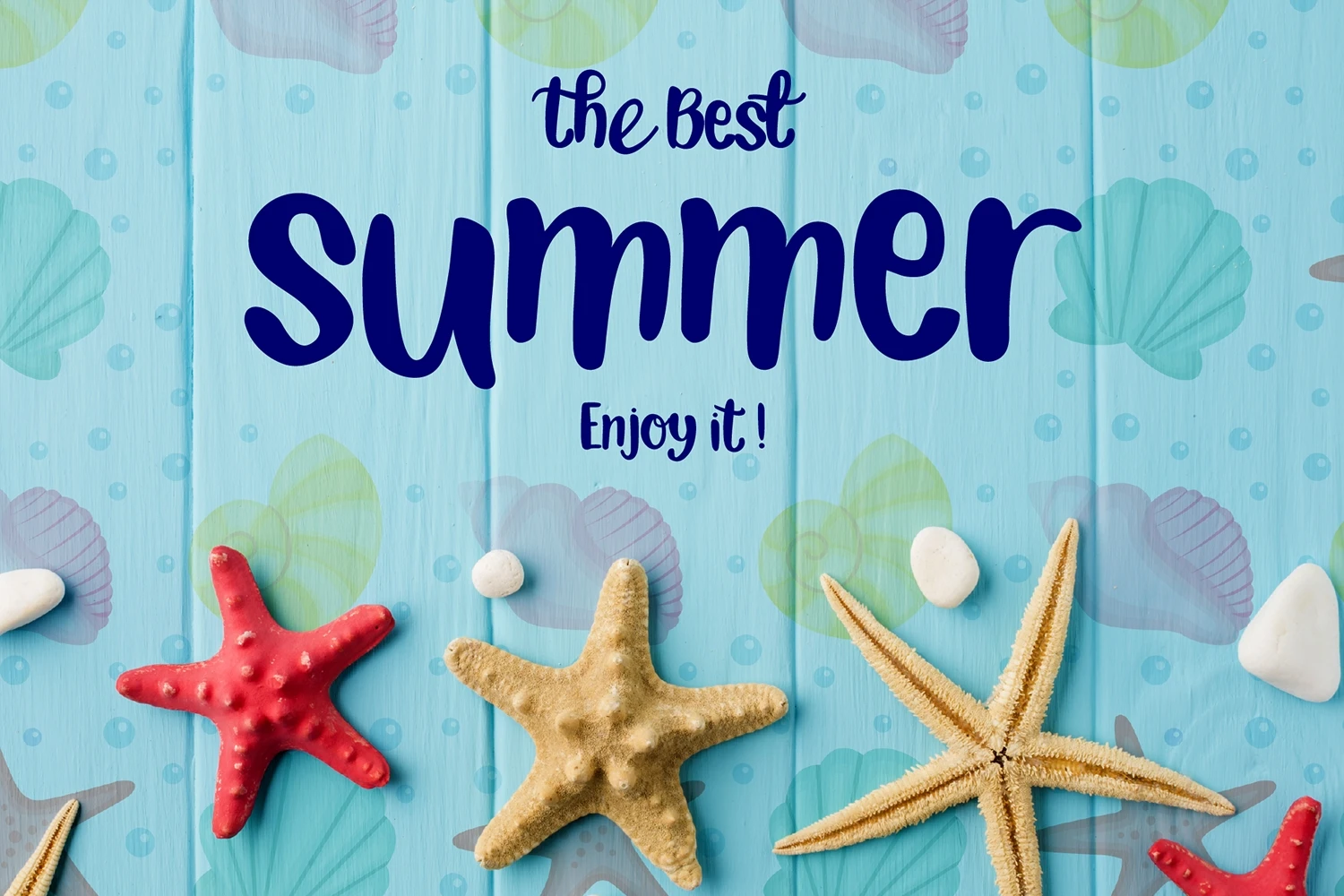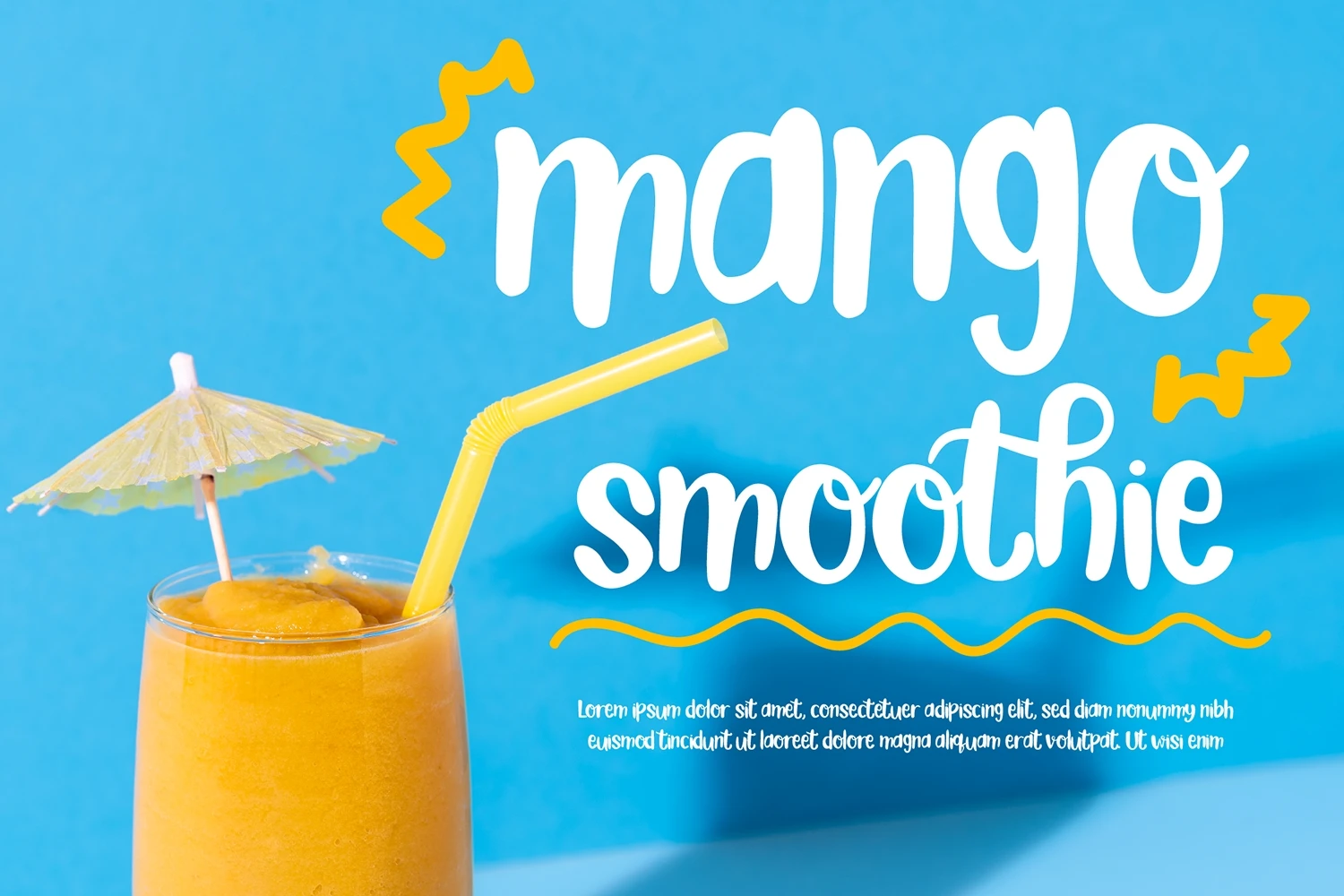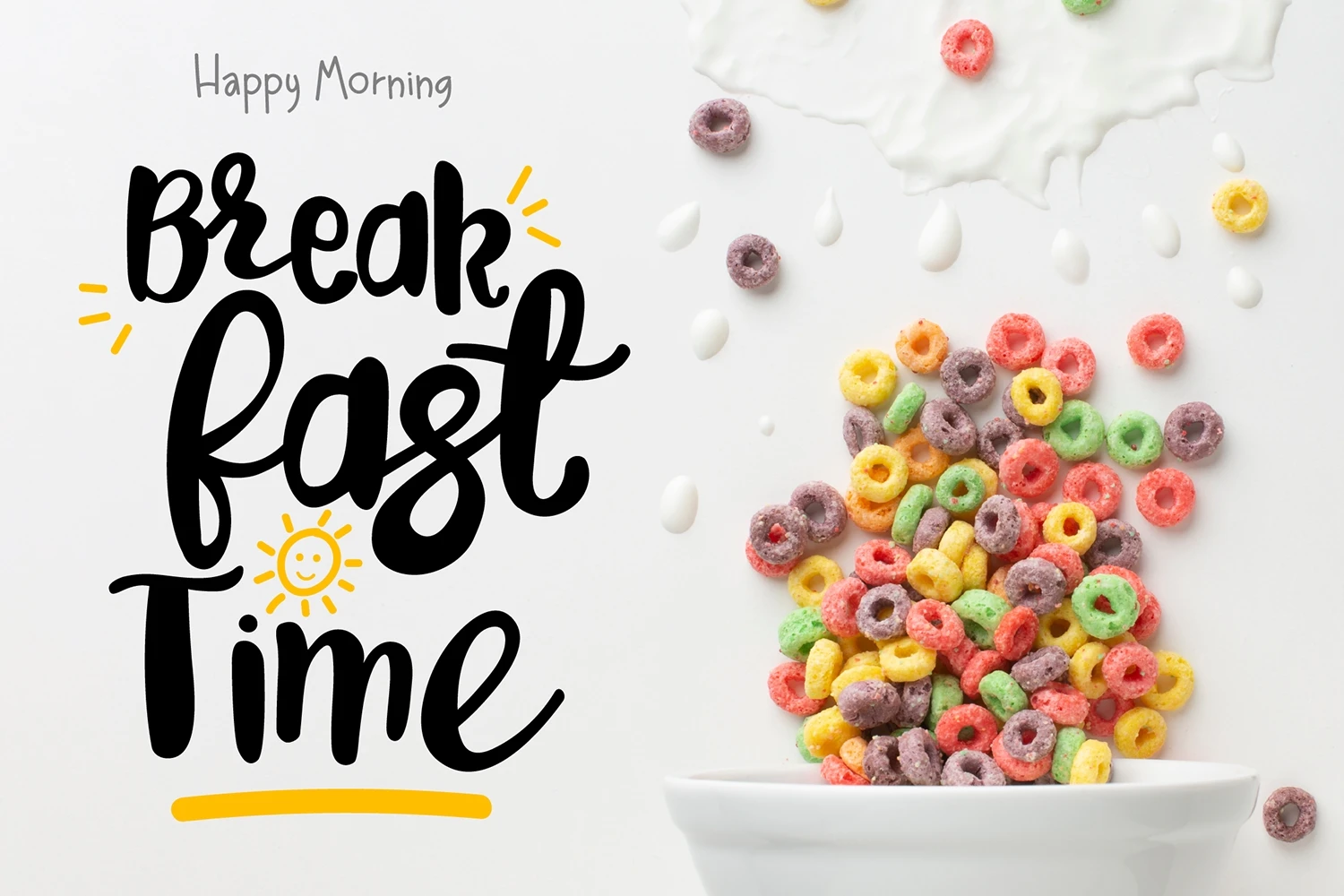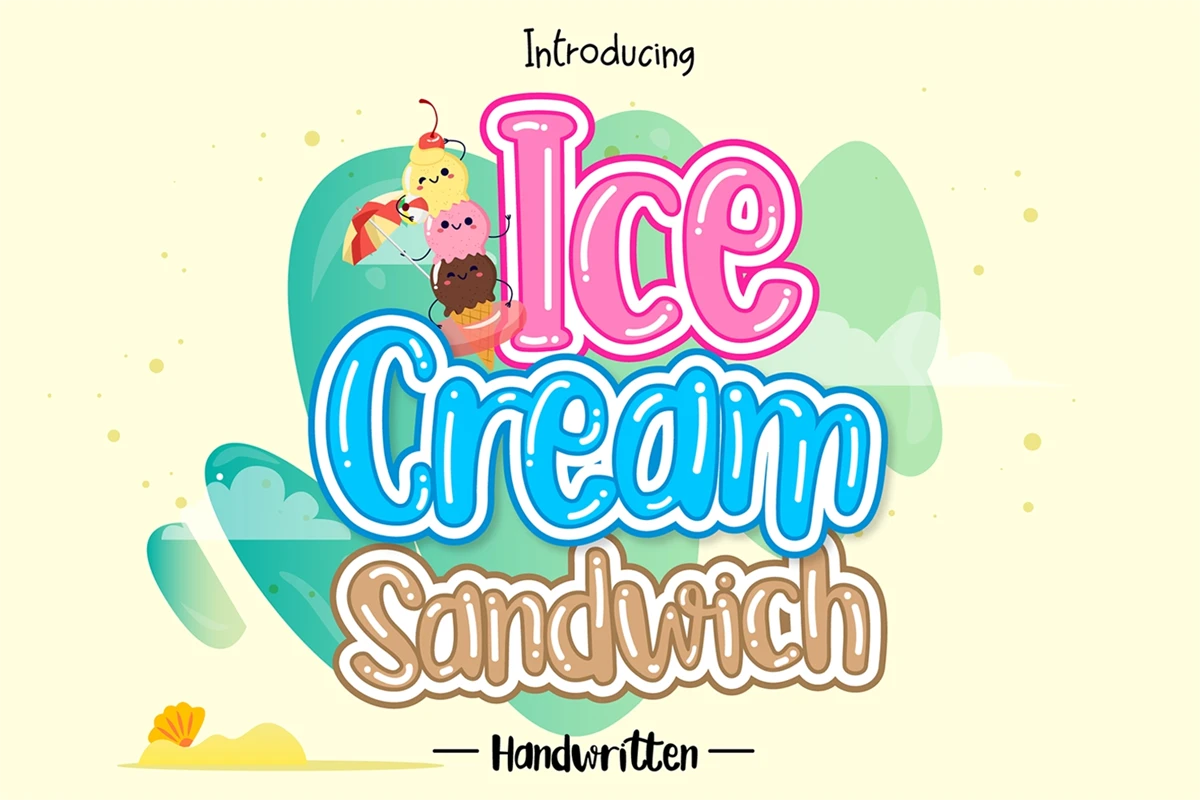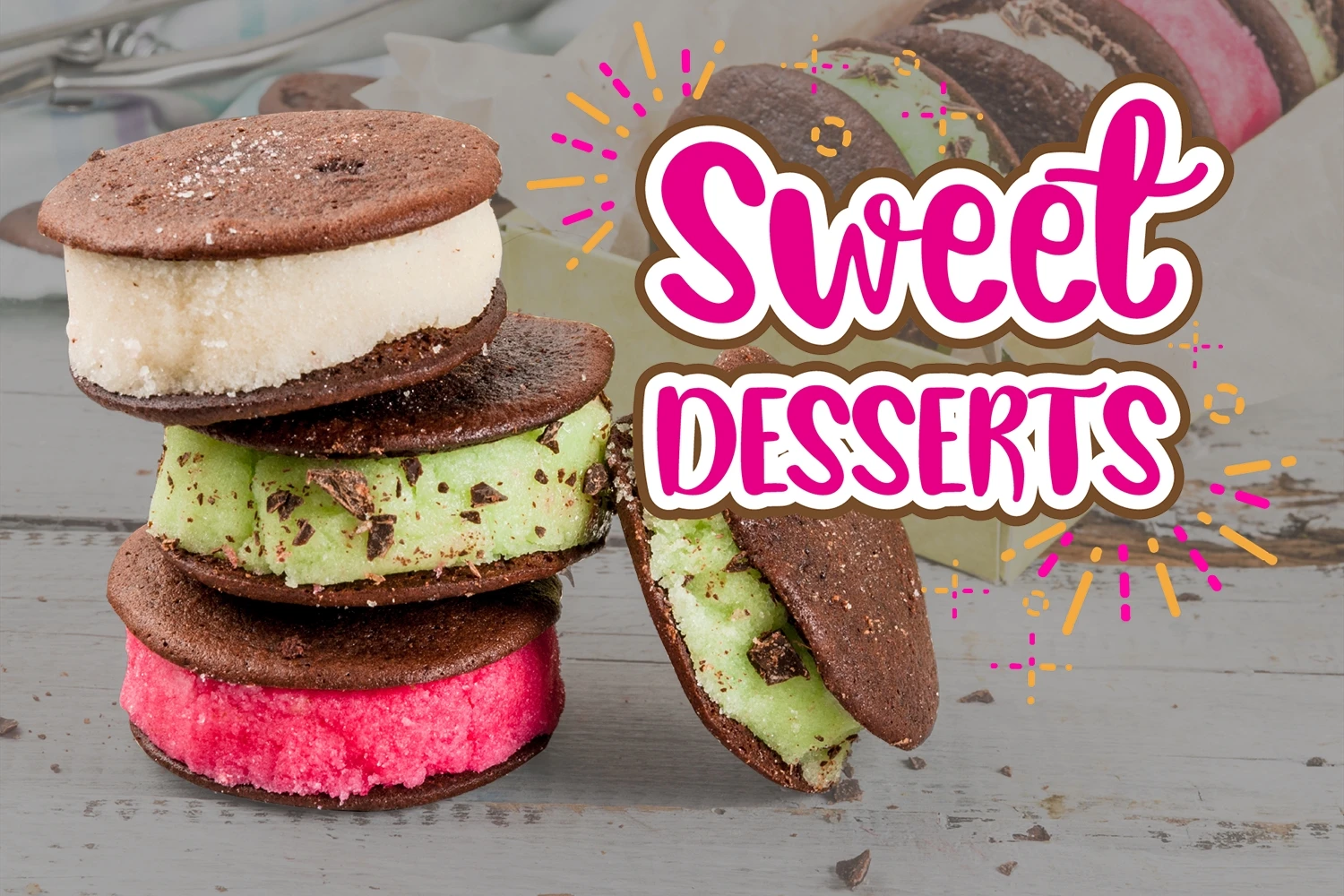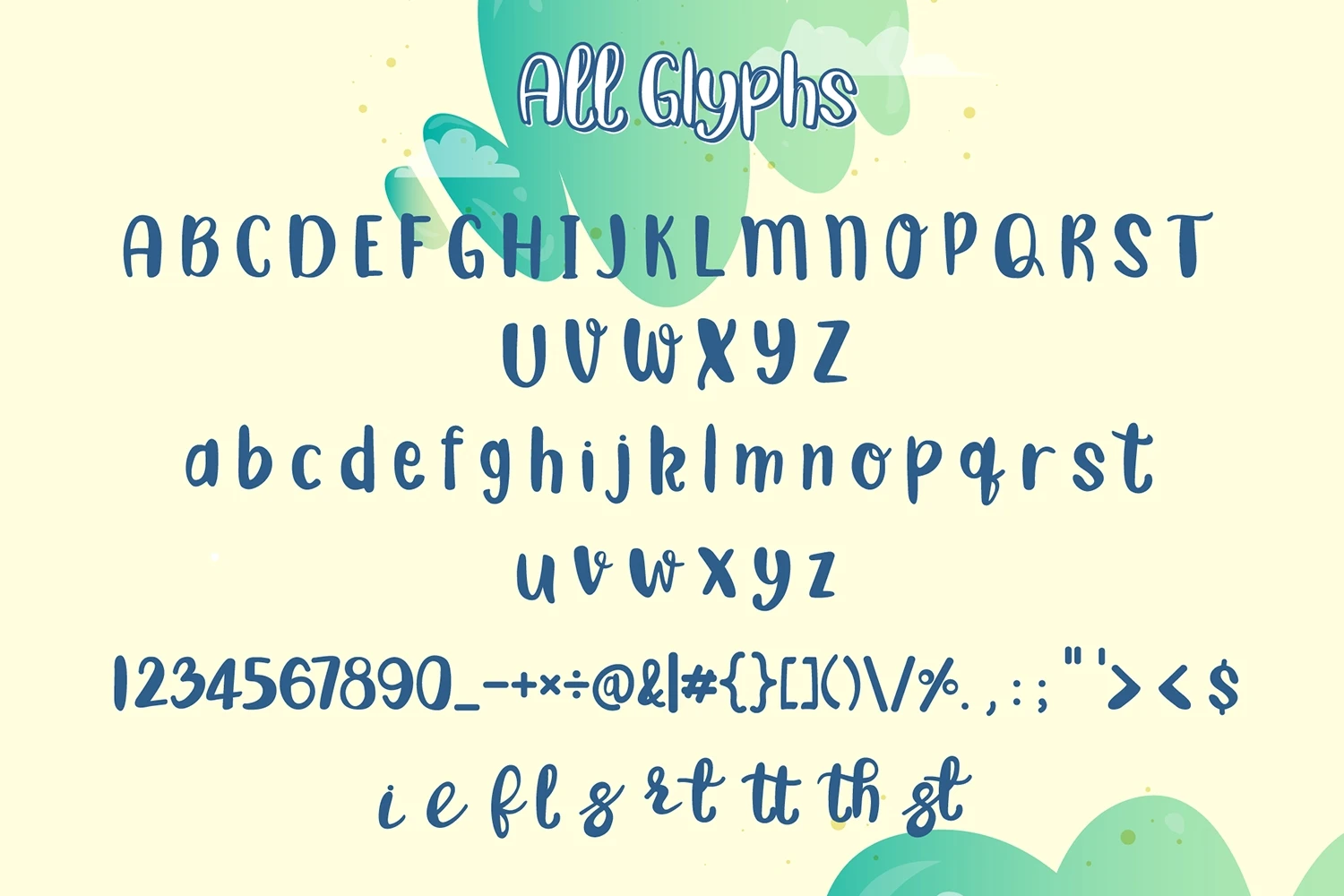
Ice Cream Sandwich is a sweet and colorful handwritten font. It embodies fun and happiness. Add it to any kids or school projects and notice how this font brightens them up!